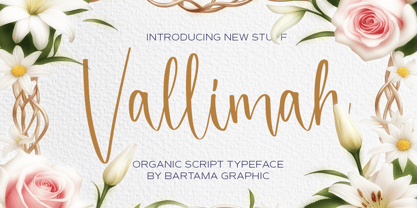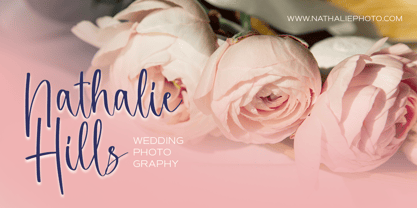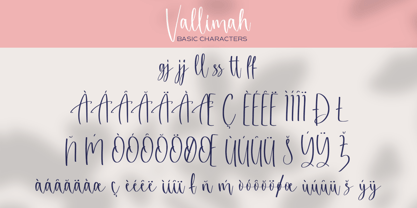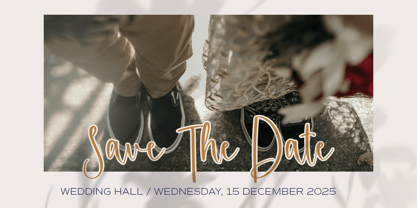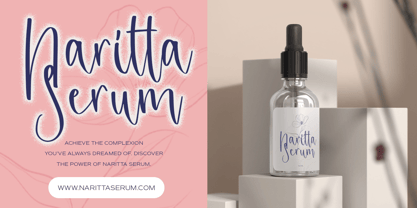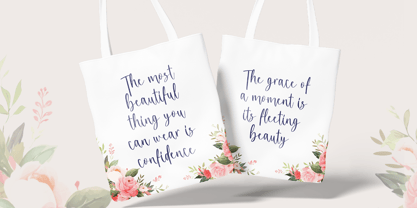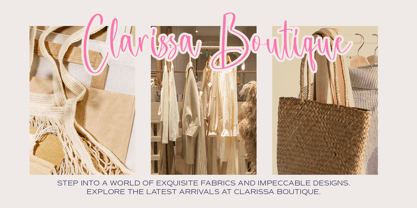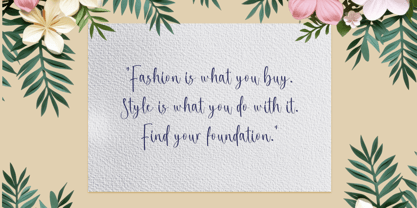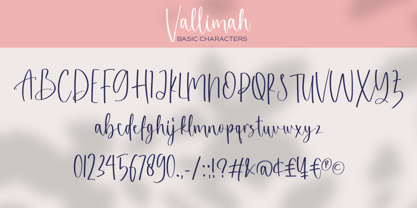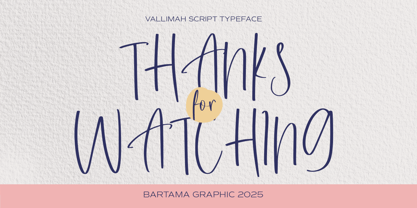
Vallimah
by Bartama Graphic
The Vallimah Font Family was designed by Rizki Akbari Utama and published by Bartama Graphic. Vallimah contains 1 styles. More about this family
Vallimah Script Font offers a smooth, flowing handwritten style with a touch of rustic elegance. Inspired by organic curves and natural writing, it's ideal for projects that need a warm, handcrafted feel. Perfect for invitations, packaging, and lifestyle branding.
Designers: Rizki Akbari Utama
Foundry: Bartama Graphic